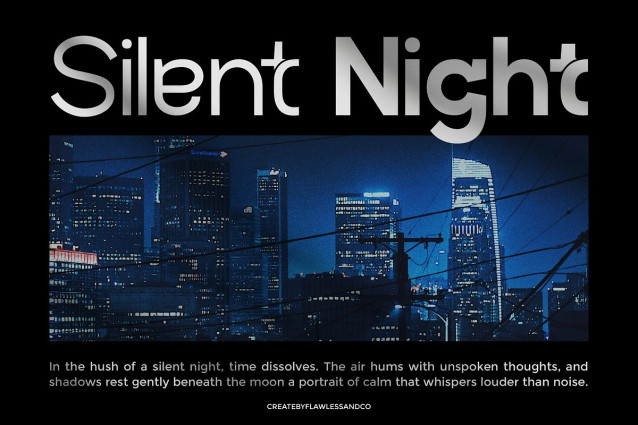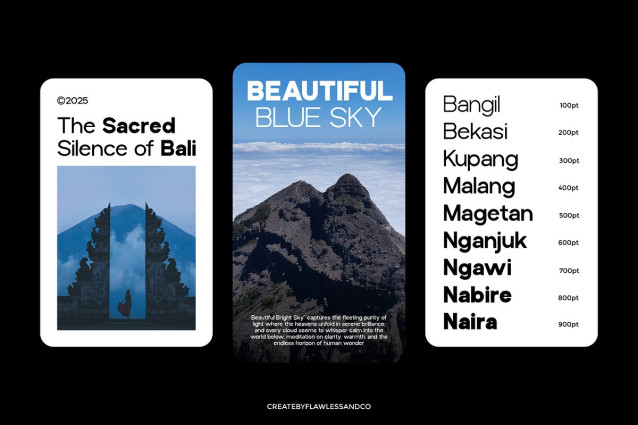
Baftiva Thin Font
Baftiva Thin Font is a modern family sans serif typeface designed with versatility and clarity in mind. Featuring 9 carefully crafted weights, from thin to black, Baftiva delivers balance and precision across every character — making it a perfect choice for designers who value clean structure and strong visual identity. With its minimalist design, smooth curves, and subtle geometric influence, Baftiva embodies both professionalism and creativity.